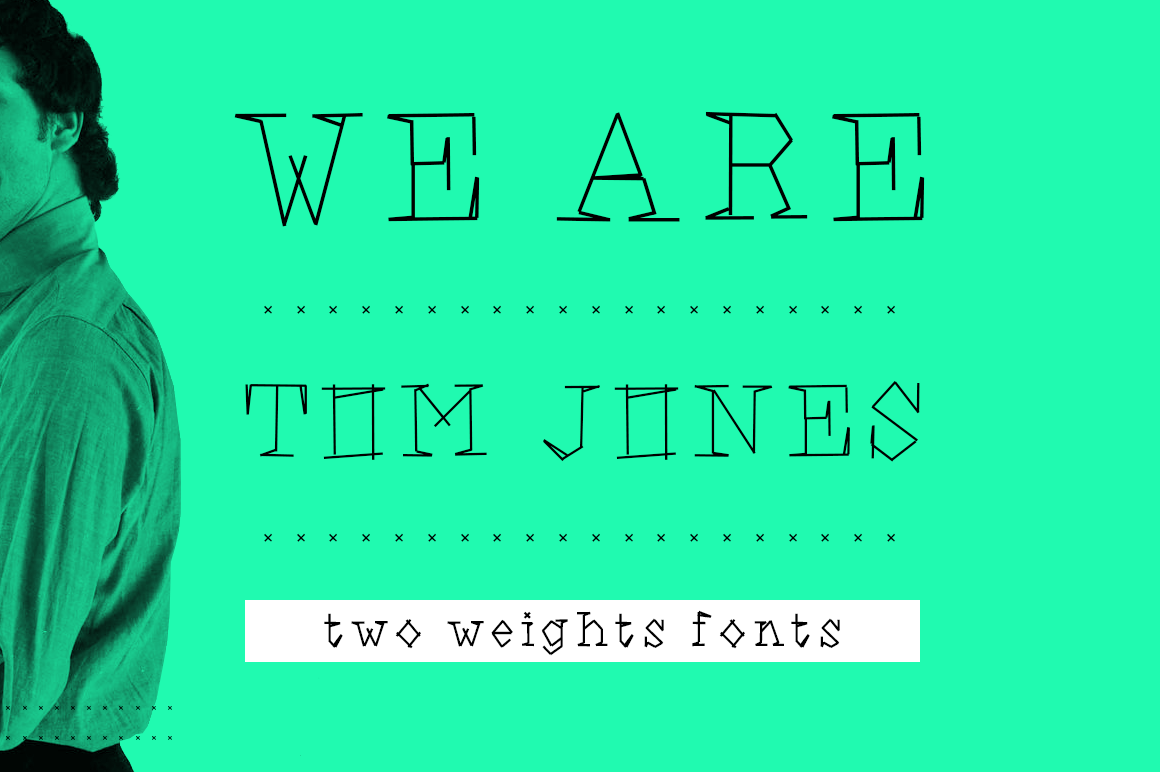
We are Ton Jones - font.
We are Tom Jones is a slab experimental font. Available in two weights, perfect for poster, flyer, logos, graphic design works. Each letter is a combination of straight lines not connected. The impression of We are Ton Jones is a sweet mix between a monospace slab serif typography like courier with a modern treatment.
UPPERCASE lowercase Numerals Punctuation & special.